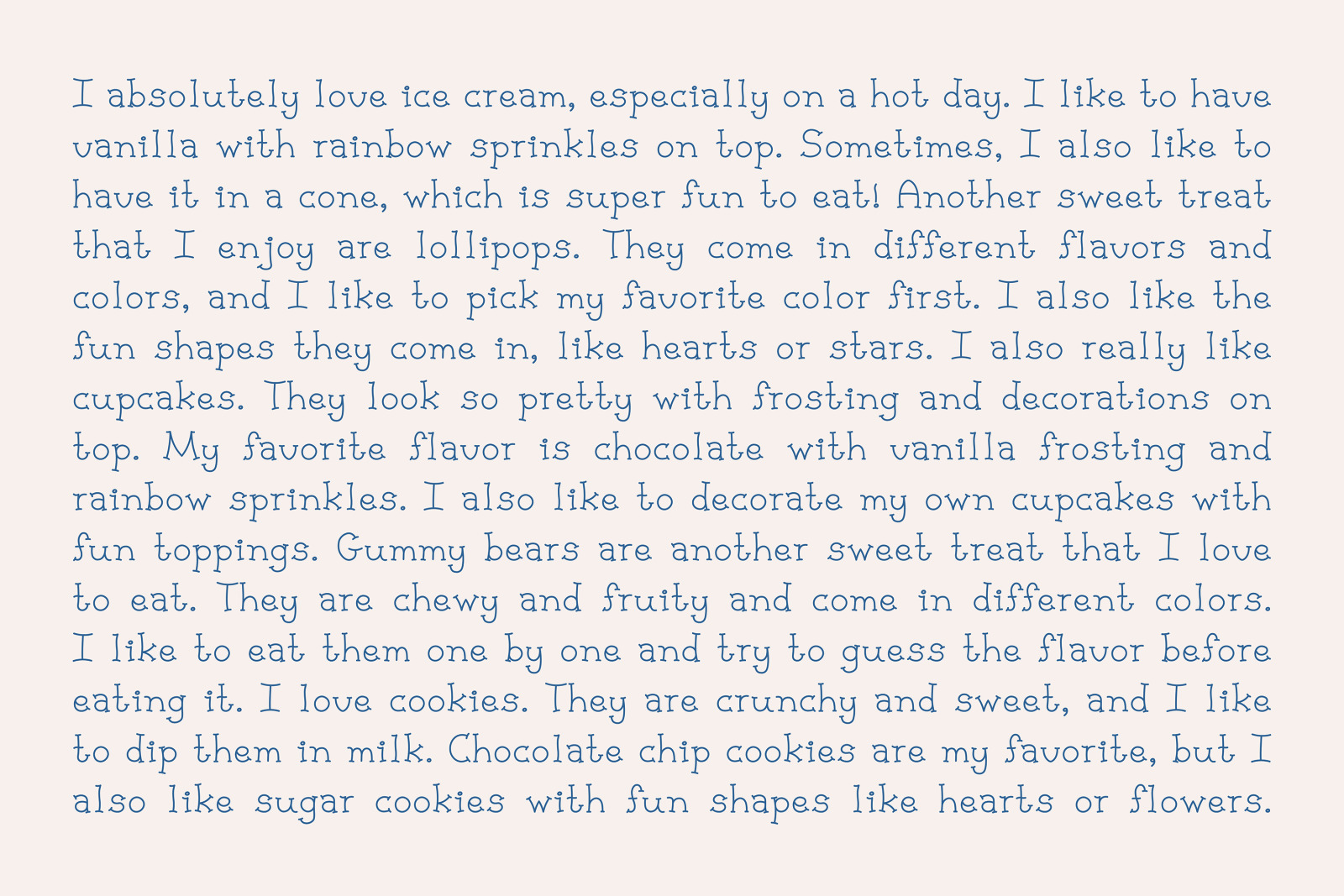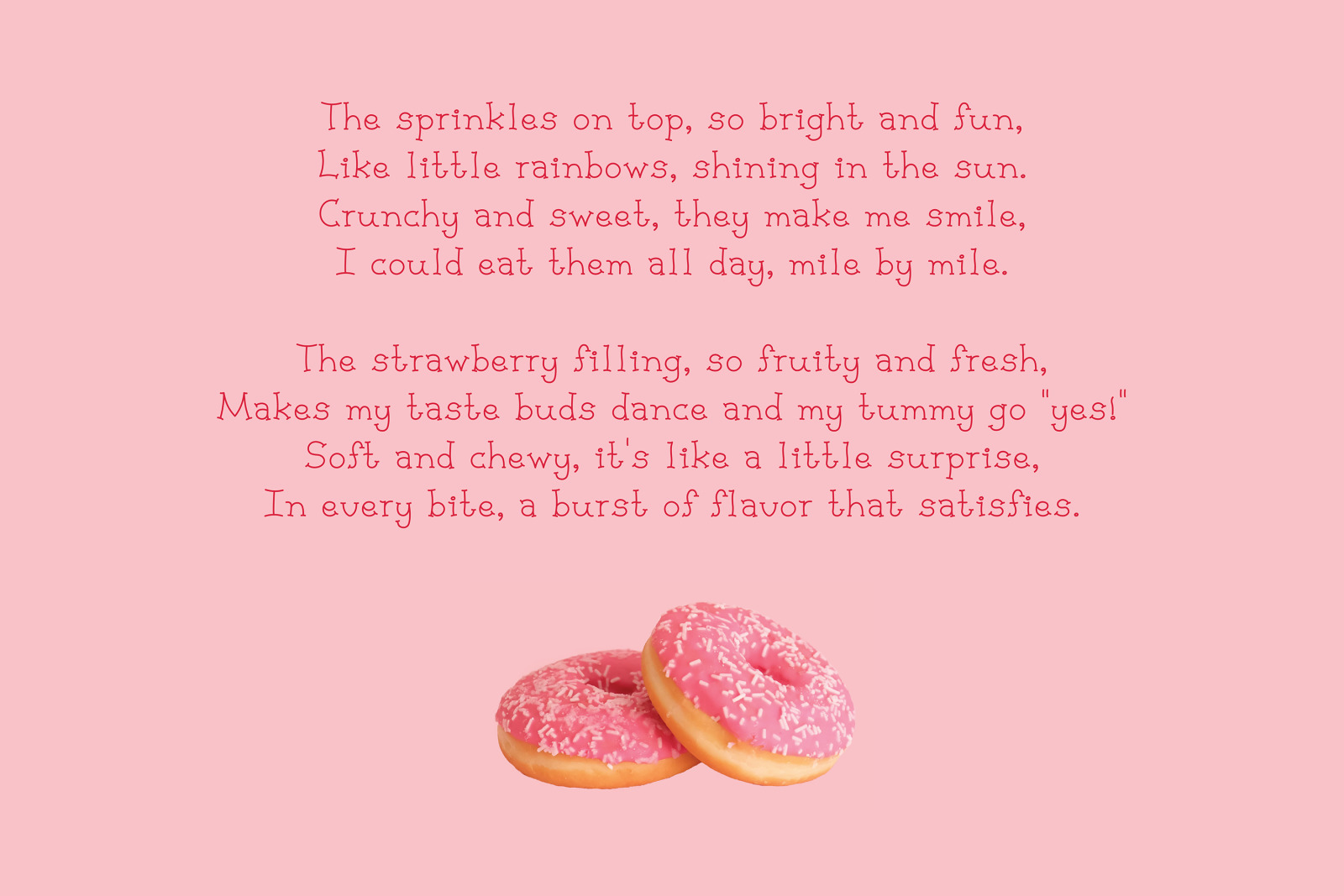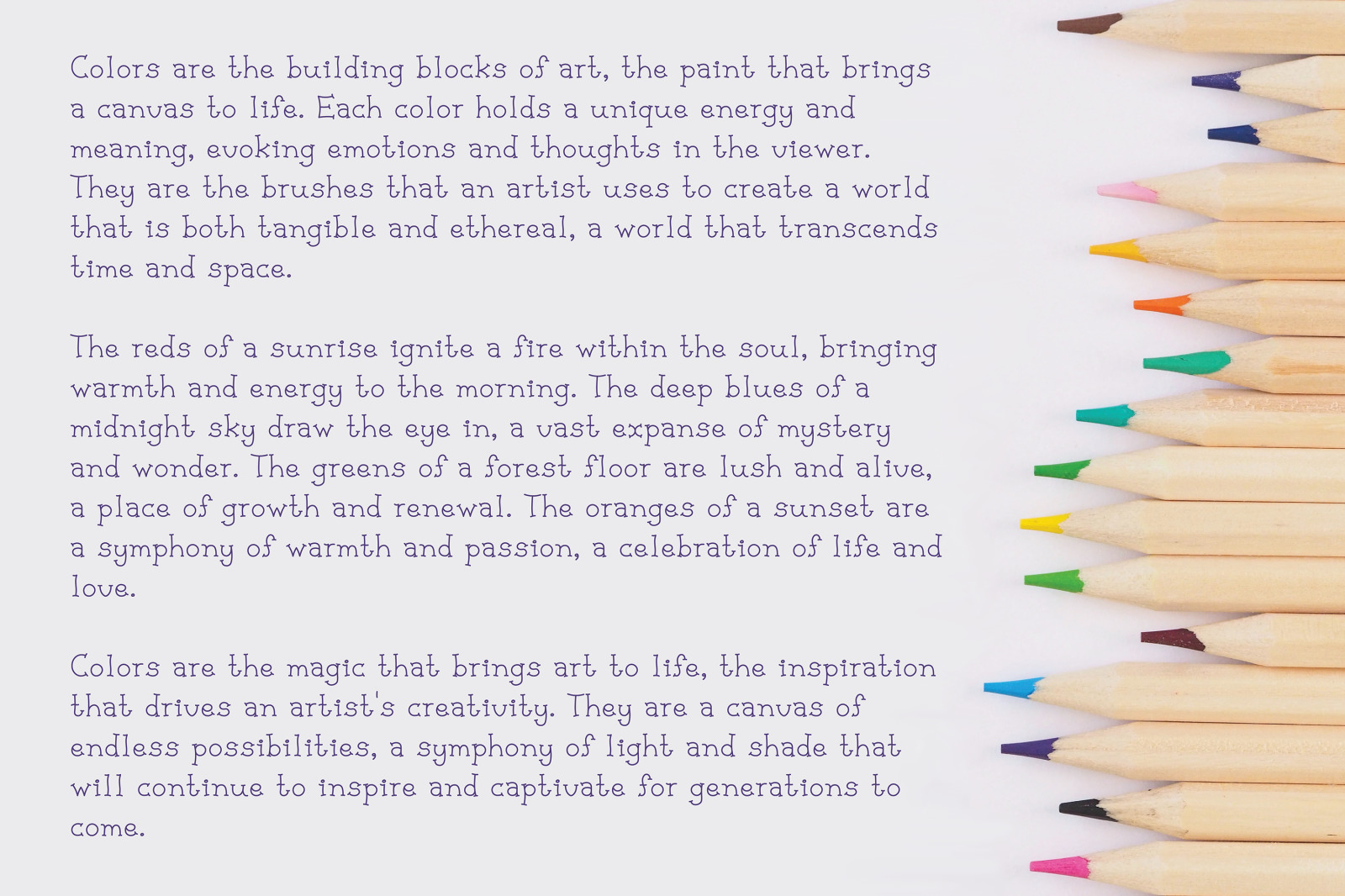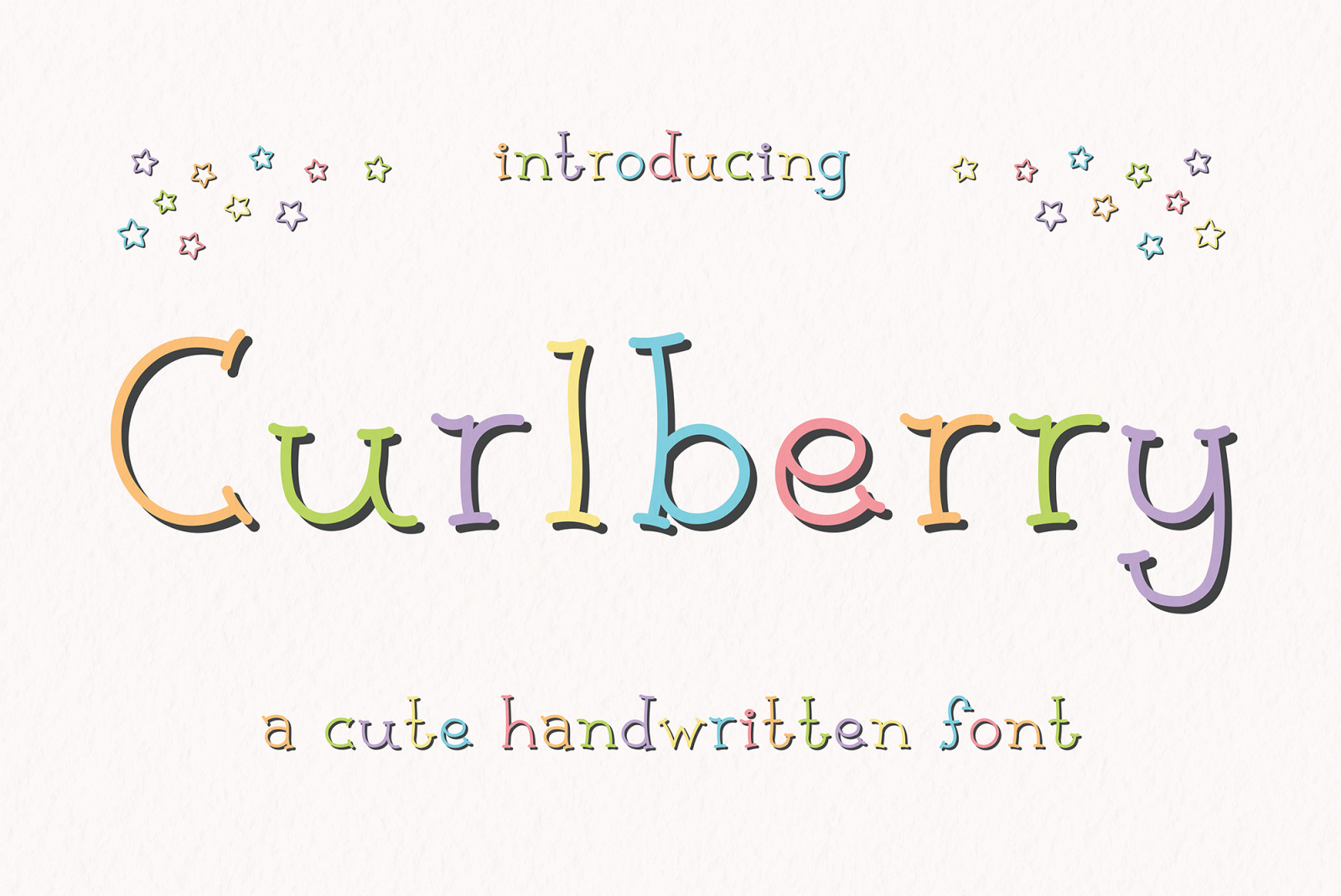
Curlberry - A Cute Handwritten Font
I designed Curlberry, a cute, handwritten font with a playful, childlike theme. The project followed several stages, beginning with hand-drawn sketches of each character on paper. I then digitized these designs using Adobe Illustrator, shaping each letter to maintain a whimsical, imperfect look, much like a child's handwriting. Finally, I used Fontself to transform the digital characters into a functional typeface, fine-tuning typographic details like letter spacing. The font includes a complete set of uppercase and lowercase letters, numbers, and punctuation marks. Curlberry is perfect for projects aimed at children, such as children's books, posters, greeting cards, toys, and games.